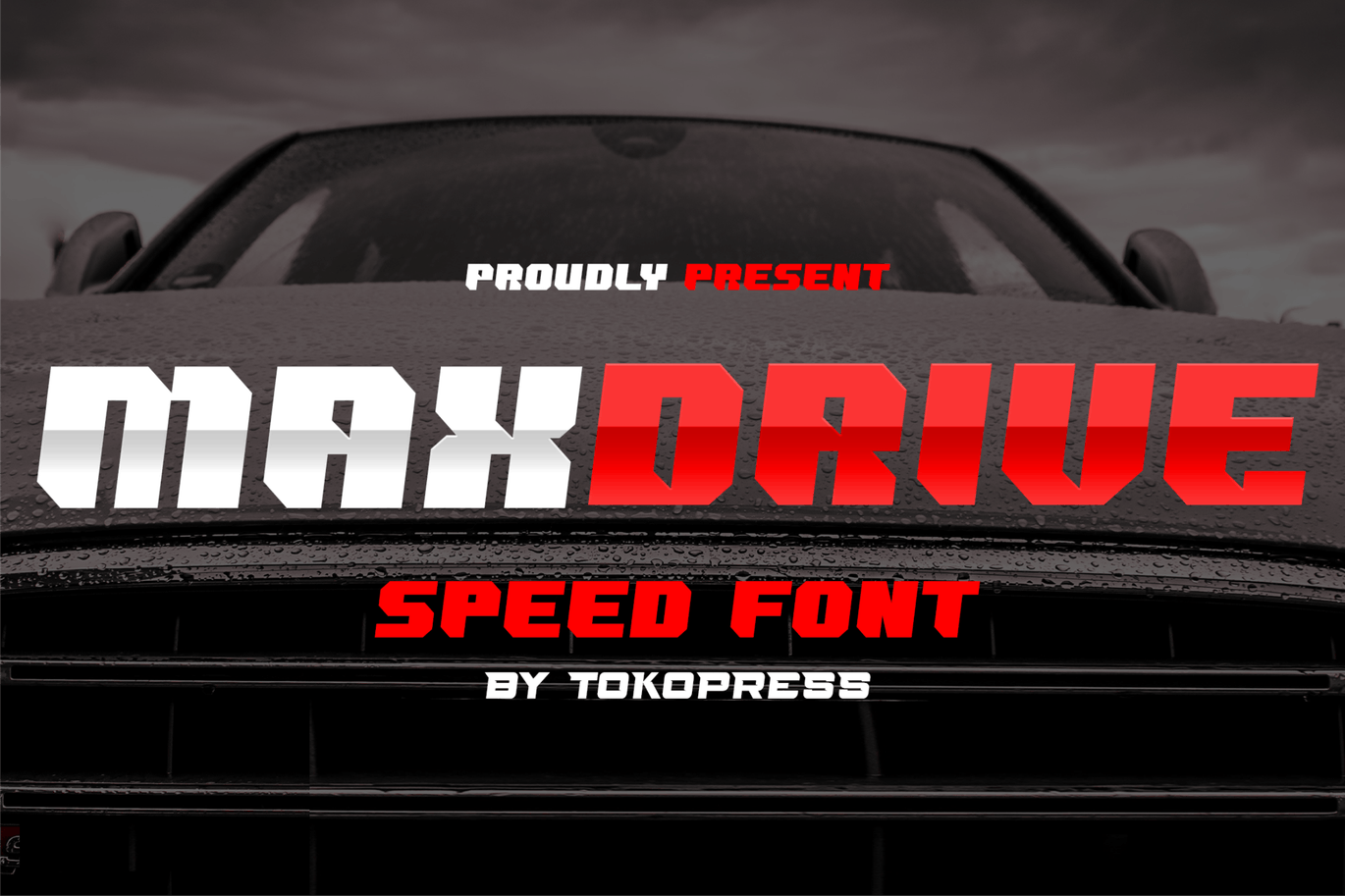
MAXDRIVE- Racing Gaming font
MAXDRIVE- racing gaming font
It speaks speed, racing, and roaring machine with the highest RPM you can get on the asphalt. With a powerful, strong sharp corner, and a solid shape for uppercase, and lineart version for the lowercase, it will make MAXDRIVEemphasize the racing spirit inside your designs.
Suit perfectly for Racing theme online games, poster, movie title, fast food menu, magazine, youtube covers, youtube thumbnails, social media page covers and so on...